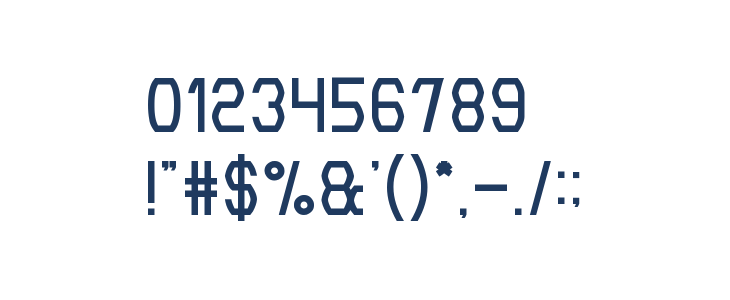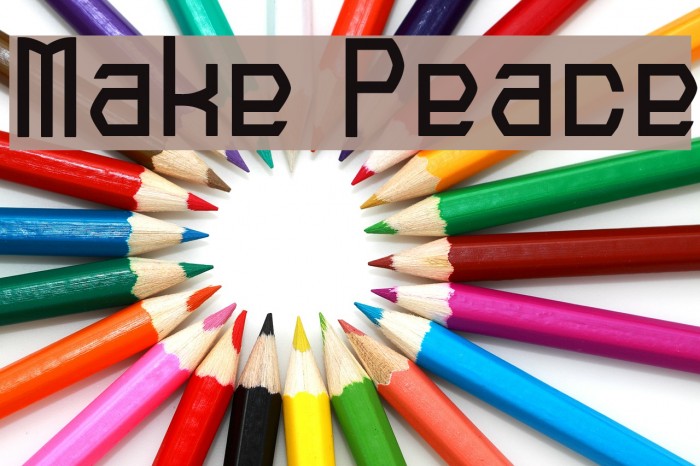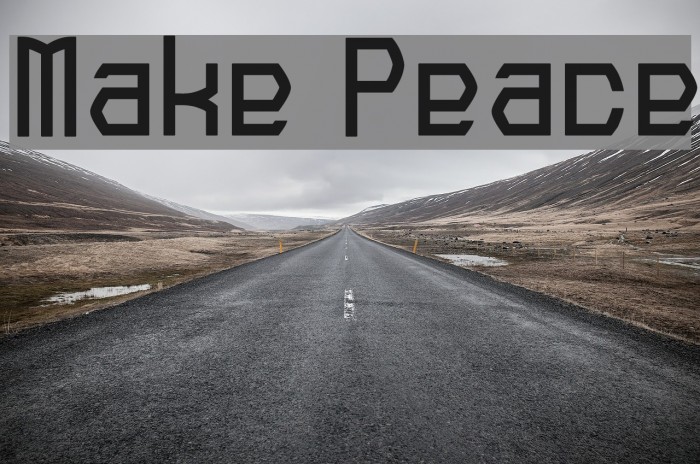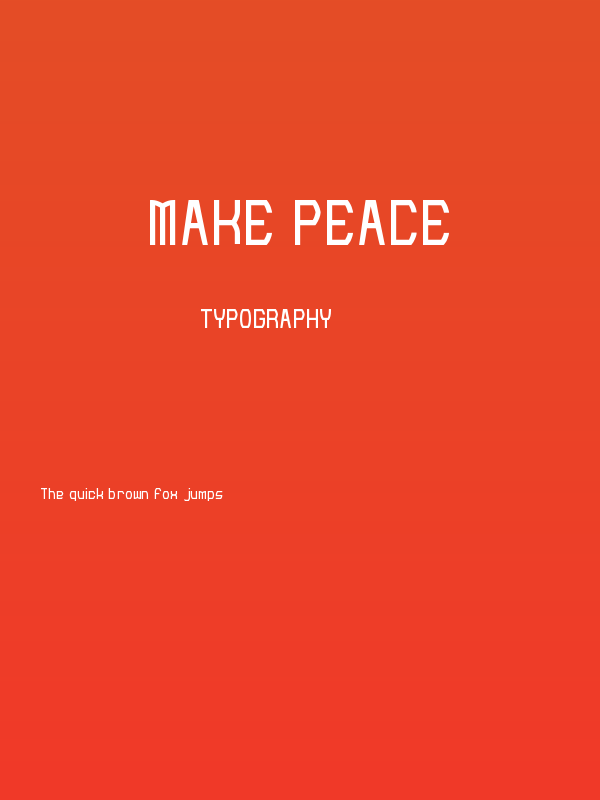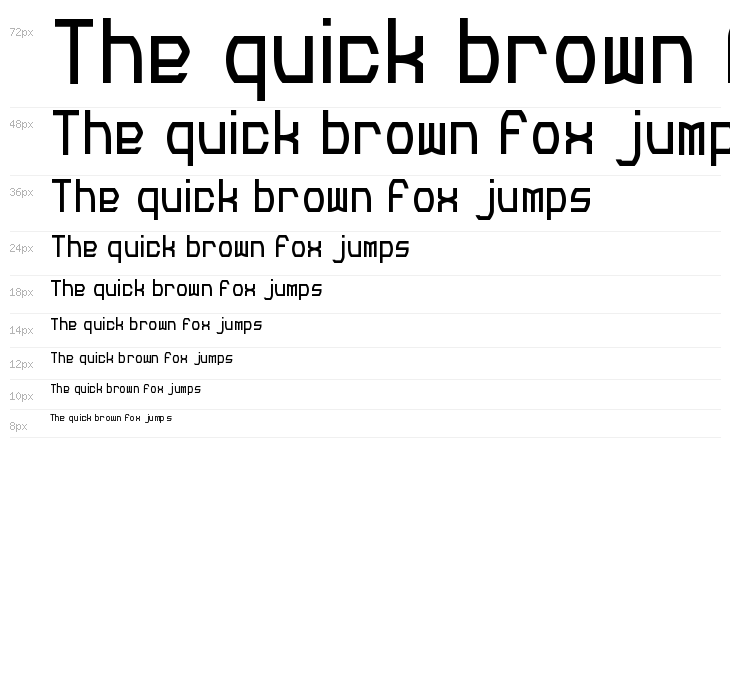
Make Peace Font
Make Peace Description
This font features a geometric and modern design with a distinct angular style. The uppercase letters are bold and structured, while the lowercase letters maintain a consistent height and width, creating a uniform appearance. The numerals are clear and easily distinguishable, with a similar angular design that complements the alphabetic characters. Special characters are well-defined, maintaining the overall geometric theme. The font's clean lines and sharp edges make it suitable for contemporary design projects, offering a futuristic and technical feel.